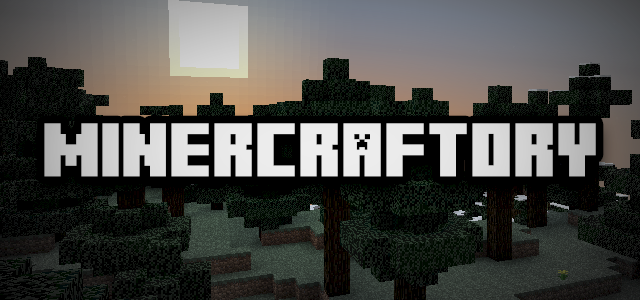
Font name: | Minercraftory |
Author: | Jayvee Enaguas |
Created and Edited by: Jayvee D. Enaguas (Grand Chaos) Since in Beta 1.4, the title menu was changed about Minecraft font. UPDATE v1.35: - Letter 'N' has been fixed than similar. USAGE: - A with creeper in 'equal sign' - A without creeper in 'A' Licensed by: Creative Commons (CC-BY-SA 3.0) © GrandChaos9000. Some Rights Reserved. © Mojang AB. |